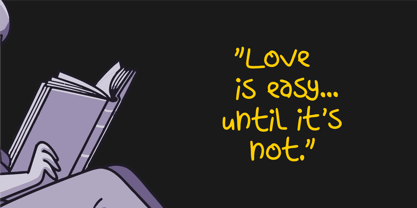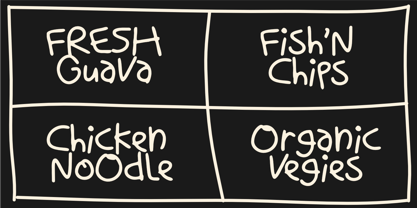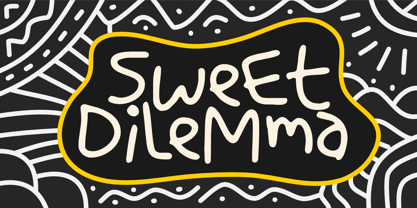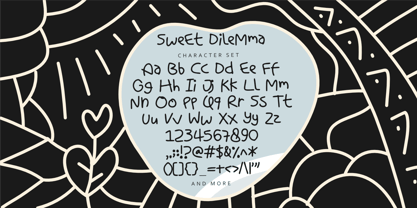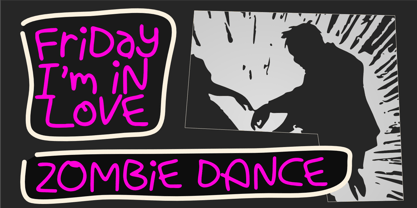
Sweet Dilemma
by Epiclinez
The Sweet Dilemma Font Family was designed by Aldy Sidik and published by Epiclinez. Sweet Dilemma contains 1 styles. More about this family
Sweet Dilemma is a vibrant and playful handwritten font that infuses joy and individuality into every project. Its casual strokes and organic flow embody the essence of handmade lettering, making it ideal for both digital and print designs. This typeface excels in applications such as posters, quotes, movie titles, packaging, branding, and logotypes, capturing attention with its lively charm. Each letter is meticulously crafted to balance creativity with readability, ensuring your text remains prominent while retaining a genuine handwritten feel. Whether you’re designing social media graphics, merchandise, or product packaging, or seeking to convey a more authentic brand identity, Sweet Dilemma adapts effortlessly. It adds warmth to greeting cards, wedding invitations, flyers, advertising campaigns, and apparel such as t-shirts and tote bags. The timeless versatility of Sweet Dilemma transcends mere typography—it serves as a design partner, breathing life into your creative endeavors. Its handcrafted appearance and bold character make it perfect for brands aiming for a friendly, youthful, and memorable presence. If you're on the lookout for a handwritten font that is both fun and stylish, Sweet Dilemma is here to elevate your designs and make every word resonate with significance.
Designers: Aldy Sidik
Foundry: Epiclinez